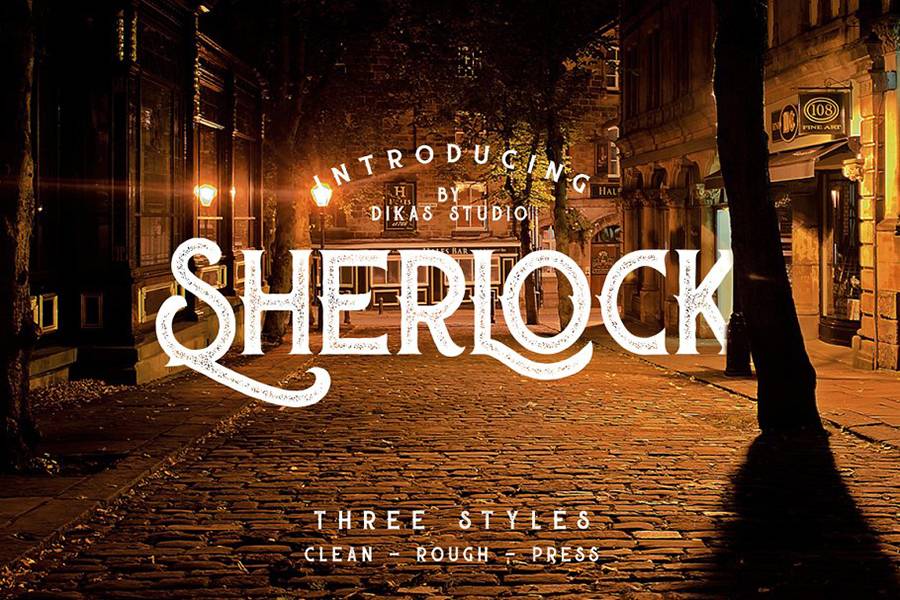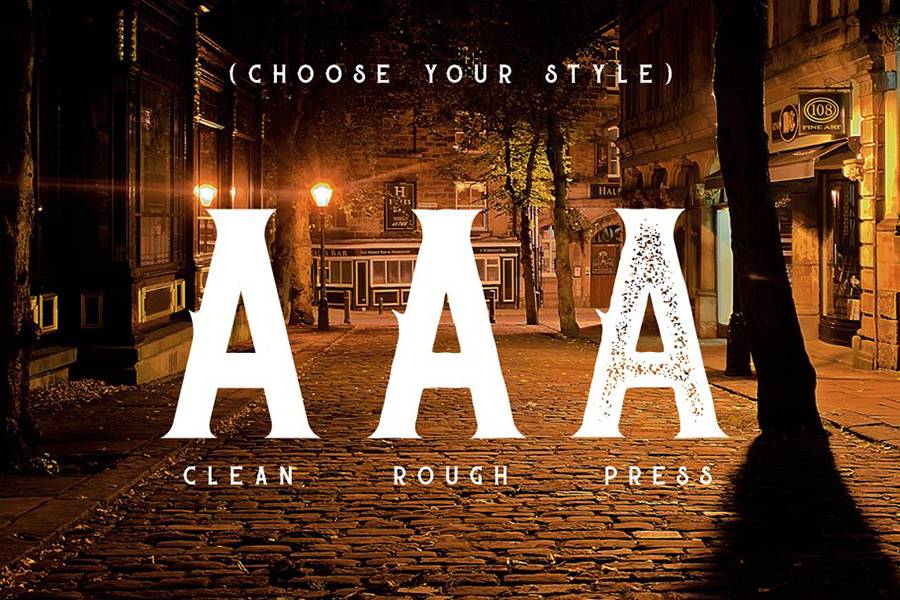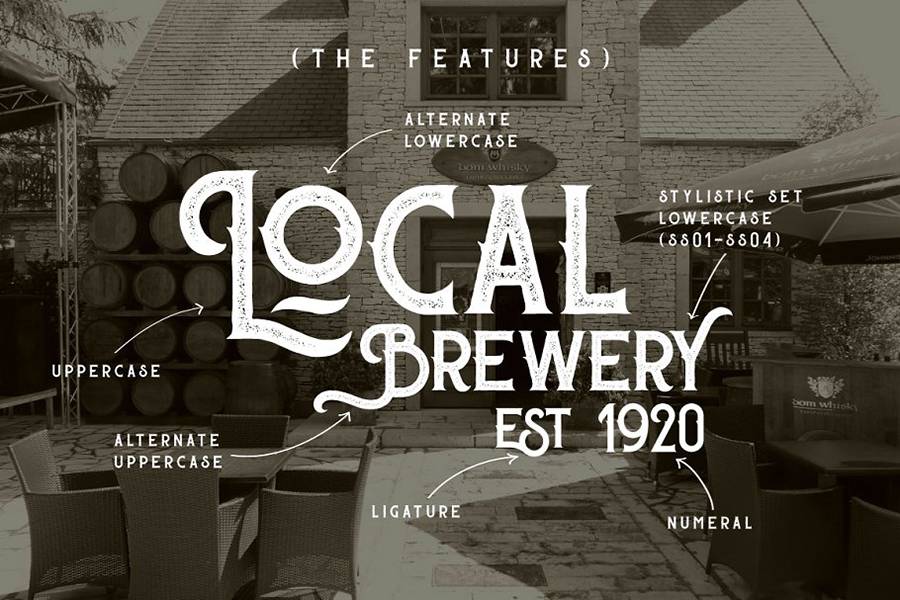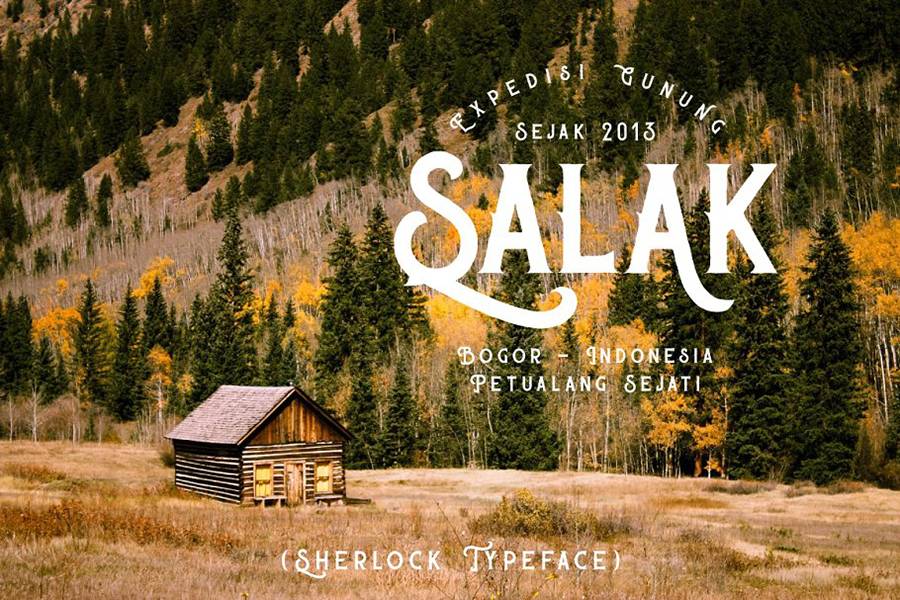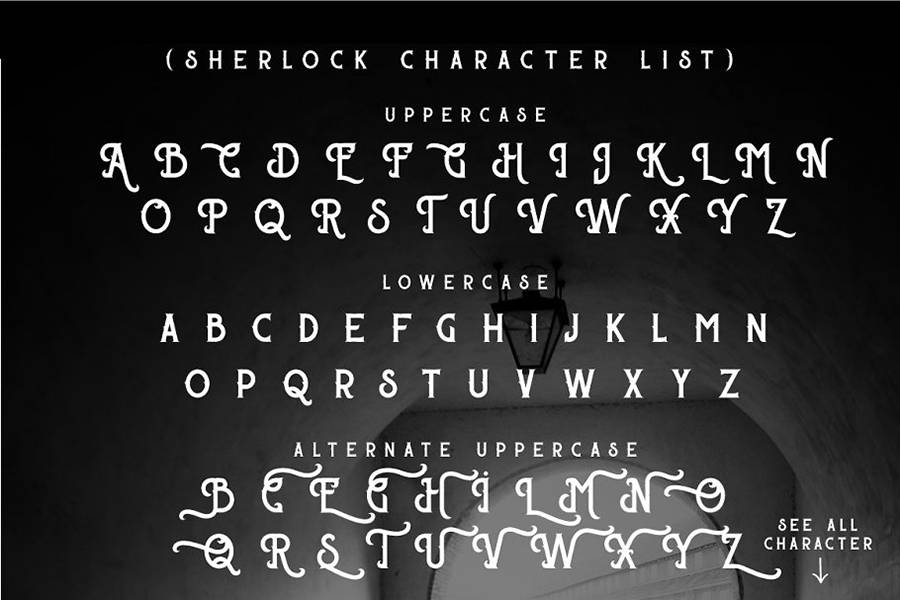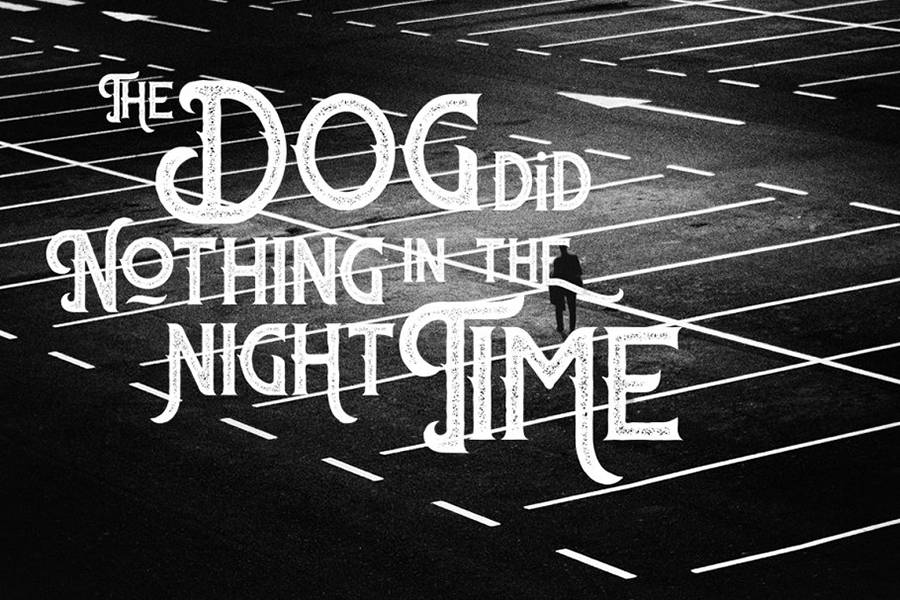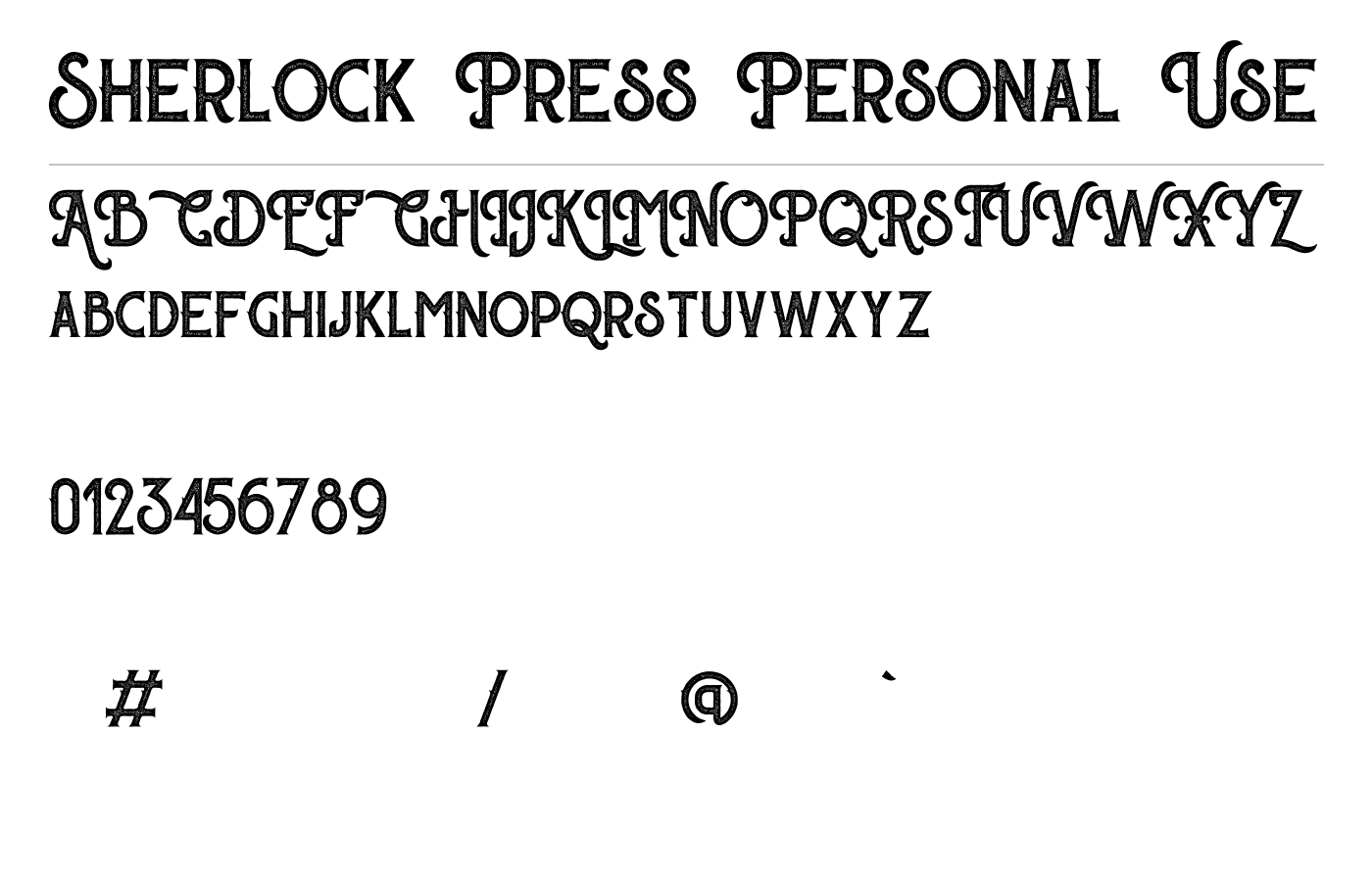
Sherlock Press Retro is a distinctive serif font with a vintage, decorative flair that combines traditional letterforms with playful, swirling details. Its medium weight, moderate contrast, and tall x-height create a bold yet elegant presence, making it ideal for eye-catching headlines, packaging, and branding that seeks a nostalgic or handcrafted feel. This font’s unique character and ornamental touches bring a charming, retro personality well suited for fashion, editorial, and creative design projects looking to stand out with a touch of old-world charm.
Sherlock Press Retro Font
About Sherlock Press Retro Font
| Designer | Andika Setiawan |